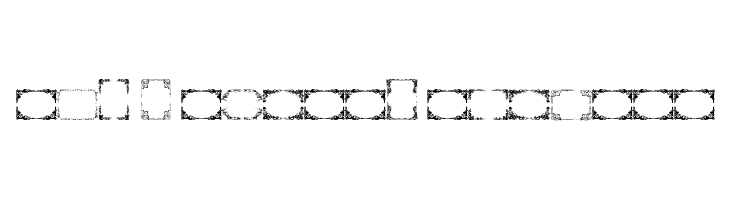
• Vtks Perfecta caratteri
A bold, handwritten-style font with dynamic and expressive strokes.
• Vtks Personal caratteri
A dynamic, handwritten-style font with artistic flair.
• vtks poster caratteri
A bold, distressed font with a rugged, vintage appearance.
• VTKS PREDATOR caratteri
A bold, geometric font with an industrial and robust style.
• Vtks Propaganda caratteri
• Vtks Propriedade caratteri
A bold, distressed font with a grunge-like, textured appearance.
• VTKS R78 EMD v2 caratteri
A bold, angular font with geometric elements and sharp edges.
• Vtks Radicale v2 caratteri
• VTKS Rafia caratteri
A bold, dramatic Blackletter-style font with intricate detailing.
• Vtks Raladeira 2 caratteri
A dynamic, angular font with sharp lines and a modern, edgy style.